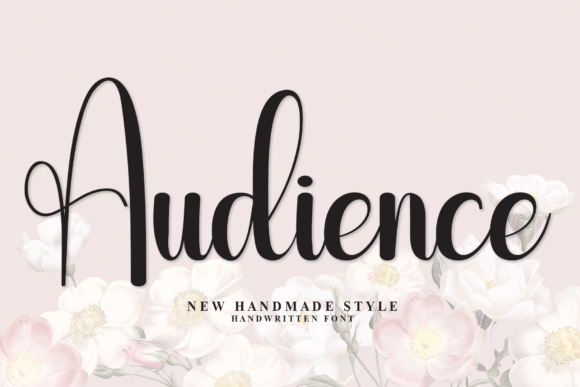
The Designer’s Delight: Uncovering the Charm of Audience Font
I’ll never forget the time I was working on a project for a client who wanted a font that was both casual and elegant. I spent hours scouring through font libraries, but nothing seemed to fit the bill. That was until I stumbled upon Audience Font. It was love at first sight! ✨ The neat and casual handwritten style instantly captured the essence of my client’s brand, and I knew I had found the perfect fit.
A Honest Review: The Good, the Bad, and the Quirky
What I Love About Audience Font
• ✅ Versatility: Audience Font is incredibly versatile and can be used for a wide range of applications, from branding and advertising to crafting and DIY projects.
• ✨ Elegant yet Casual: The font’s neat and casual handwritten style strikes the perfect balance between elegance and approachability.
• 💡 Creative Freedom: With its wide range of OpenType features and glyphs, Audience Font gives you the creative freedom to experiment and try new things.
While Audience Font is an excellent choice, it’s not without its quirks. ⚠️ Some users may find that the font’s casual style can be a bit too relaxed for formal projects. Additionally, the font’s legibility can be affected at very small sizes, so it’s best to use it at larger sizes or for display purposes.
For example, I once used Audience Font for a client’s wedding invitation, and while it looked stunning, I had to adjust the size and spacing to ensure it was legible. 🤔 It’s a minor adjustment, but it’s essential to consider the font’s limitations when working on a project.
The Story Behind Audience Font
Audience Font was designed with the intention of creating a font that was both elegant and approachable. The designer aimed to craft a font that would be suitable for a wide range of applications, from formal events to casual DIY projects. The result is a font that exudes warmth and sophistication, making it perfect for creative projects that require a personal touch.
Q: Is Audience Font suitable for body text?
A: While Audience Font is primarily designed for display purposes, it can be used for body text in certain contexts. However, its legibility may be affected at small sizes, so it’s best to use it for larger text or headings.
Q: Does Audience Font support OpenType features?
A: Yes, Audience Font supports OpenType features, including stylistic alternates, ligatures, and glyphs. You can access these features through the font settings on compatible platforms.
Q: Is Audience Font available in different weights or styles?
A: Audience Font comes in a range of weights and styles, making it versatile and adaptable to different design needs.